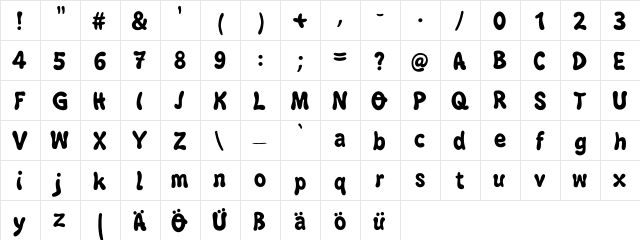
Bubblegun Bold
| Foundry | Simon Thomaschke |
| Designer | Simon Thomaschke |
Design Context for Bubblegun Typeface
Bubblegun trades formality for fun, with bouncy, characterful letterforms that bring warmth and energy to any project.
Font Pairing: Pairs well with a rounded or humanist sans for body copy, maintaining the friendly tone without relying on Bubblegun to carry extended reading.
Pro Tip: Use Bubblegun at larger display sizes where its expressive character can land. Pair with a clean, simple sans for body copy to maintain readability.